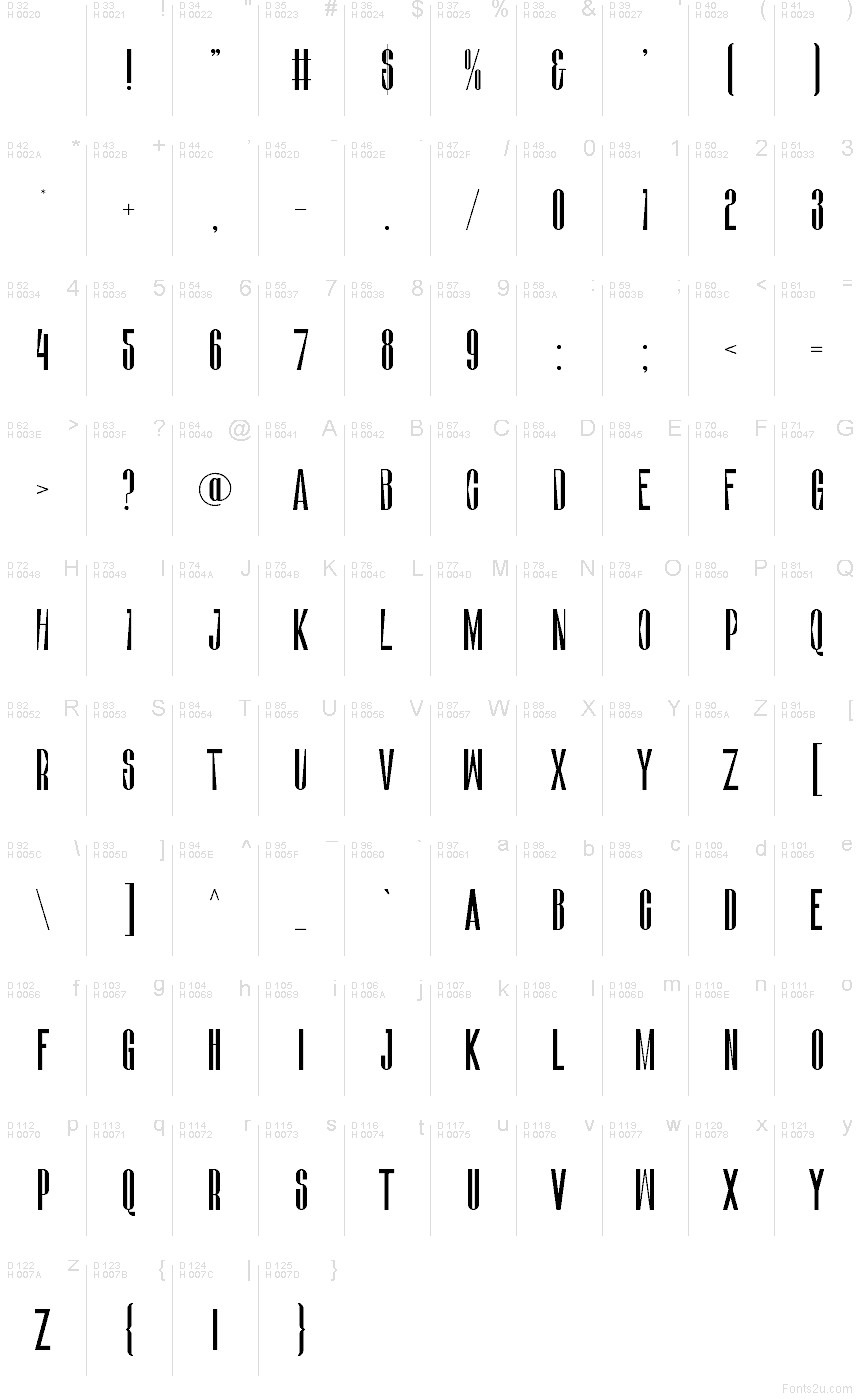
Abrose font by ErmediaStudio is a free retro sans serif typeface that stretches each letter into a tall, lean column, like vintage theater signage squeezed into a narrow marquee. The vertical strokes feel bold and inky, while the tight width gives every word a strong, stacked presence. There’s a cinematic, Art Deco flavor here-elegant but tough-that makes even short titles feel like a statement.